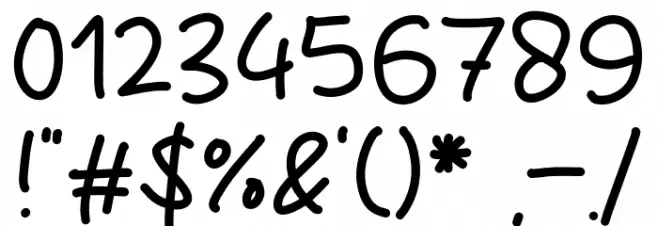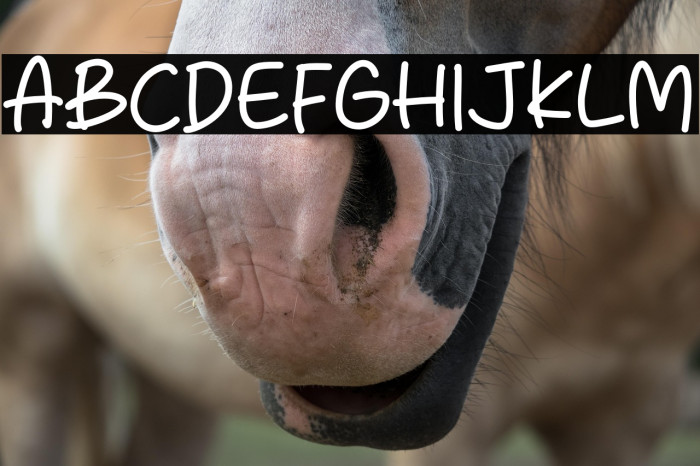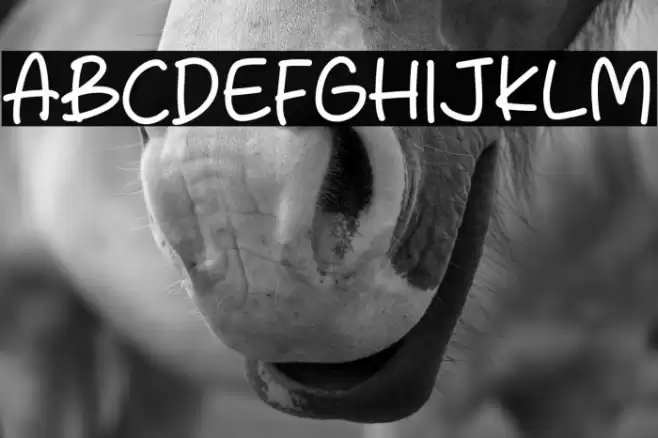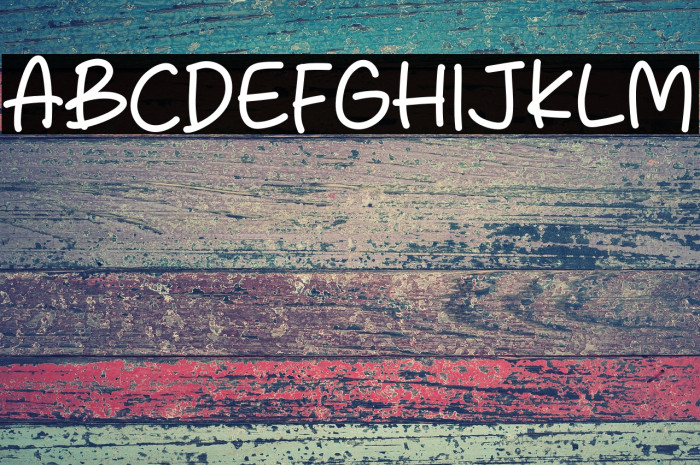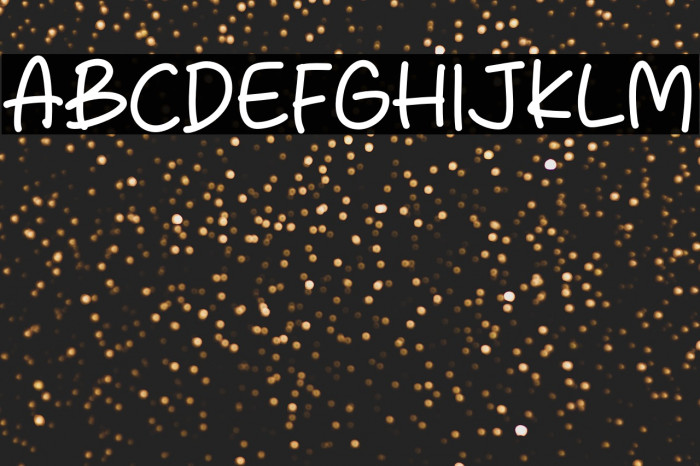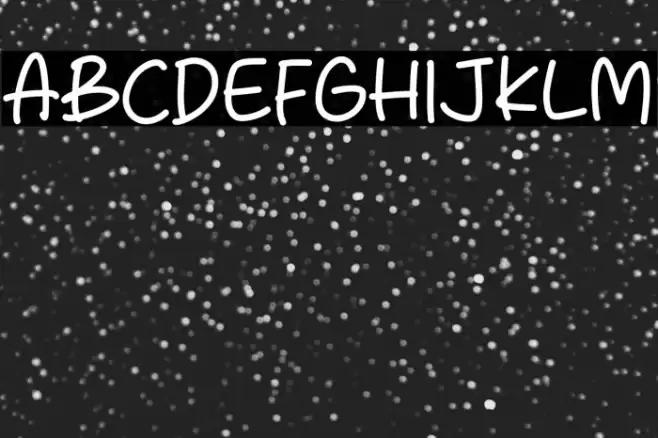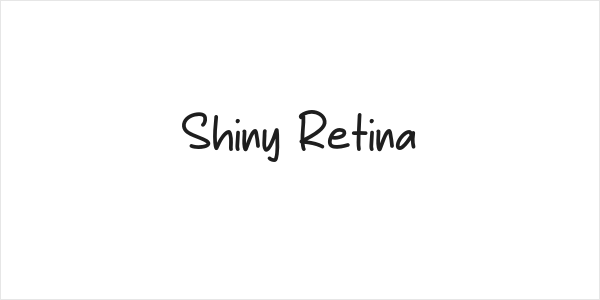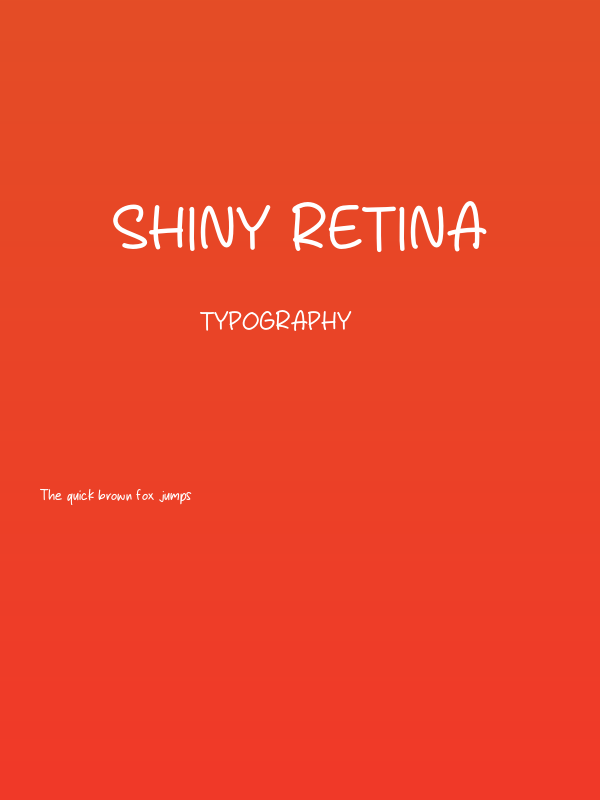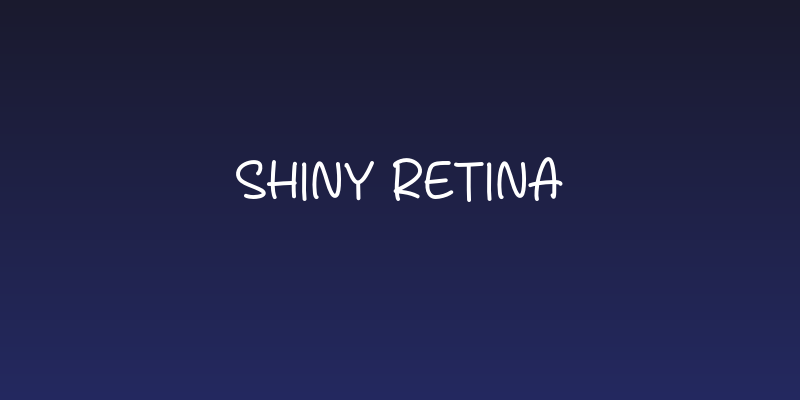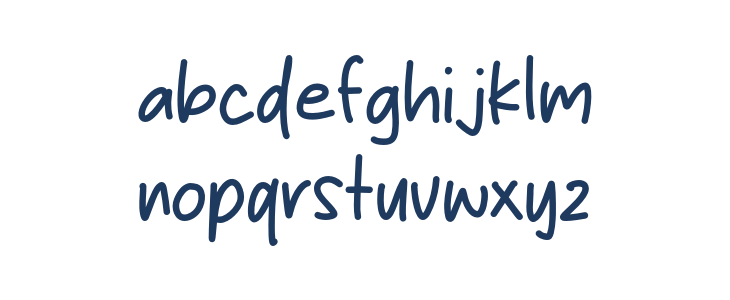
Shiny Retina Font
Shiny Retina Description
This font exhibits a playful and casual handwritten style, characterized by smooth, rounded strokes and a slightly irregular baseline that adds a personal touch. The letters are well-spaced, ensuring readability while maintaining an informal aesthetic. The uppercase and lowercase letters are distinct, with the lowercase letters showing a slight slant that enhances the handwritten feel. The numerals and special characters are consistent with the overall style, making it versatile for various uses. The font's friendly and approachable appearance makes it suitable for projects that require a personal or informal tone.
| Use Case | Headlines, Informal text, Personal projects |
| Proposed Projects | Ideal for greeting cards, personal invitations, children's books, and casual branding. |